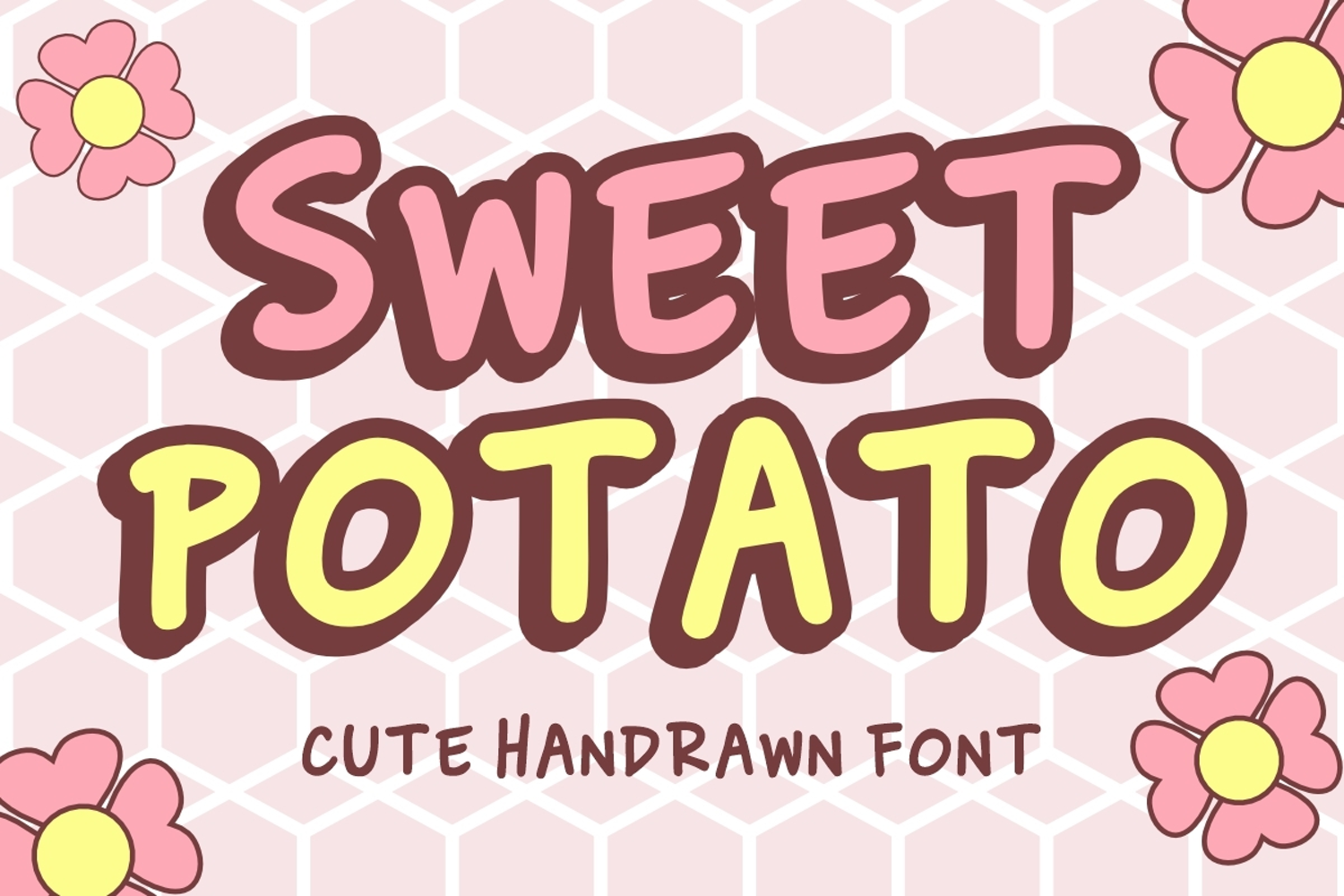
Sweet Potato
Sweet Potato is a fun and bubbly hand-drawn font packed with charm and cuteness. With its rounded shapes and playful style, this typeface is perfect for children’s books, kawaii packaging, greeting cards, and anything that needs a warm and cheerful vibe. It radiates a homemade touch that feels sweet and approachable.